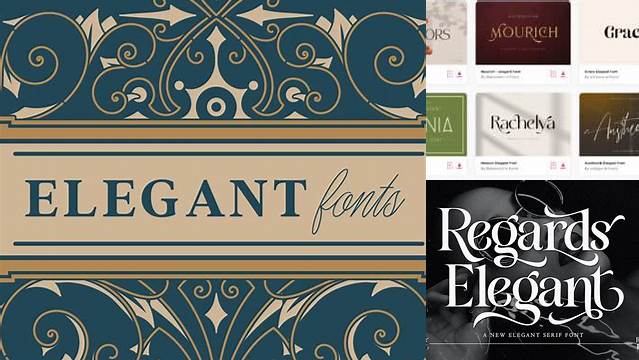
Free Elegant Fonts: Your Guide To Beautiful Typography
Are you searching for elegant fonts to elevate your design projects? Look no further! In this comprehensive guide, we'll dive into the world of elegant typography and explore a vast collection of free fonts that can add a touch of sophistication and class to your work. We know that finding the perfect font can be a game-changer, whether you're designing a website, crafting invitations, or creating marketing materials. The right font not only conveys your message effectively but also enhances the overall aesthetic appeal of your project. So, let's get started and discover the best elegant fonts available for free!
Why Elegant Fonts Matter
Elegant fonts are more than just pretty typefaces; they are powerful tools that can communicate the essence of your brand or message. These fonts often feature delicate strokes, graceful curves, and a timeless appeal, making them ideal for projects that require a touch of sophistication. Think about it, guys, an elegant font can instantly transform a simple design into something that exudes luxury and refinement. They can evoke feelings of elegance, grace, and professionalism, setting the tone for your entire design. For example, if you're designing a wedding invitation, an elegant script font can convey the romance and formality of the occasion. Similarly, for a high-end fashion brand, using a sleek and elegant sans-serif font can reinforce the brand's sophisticated image. Therefore, understanding the impact of elegant fonts and knowing how to use them effectively is crucial for any designer or creative professional. The right choice can make or break your design, so let’s explore the characteristics that define these exquisite typefaces.
Characteristics of Elegant Fonts
Elegant fonts typically share several key characteristics that contribute to their refined appearance. These characteristics include: Serifs, thin strokes, high contrast, graceful curves, and timeless design. Let's break down each of these elements to get a better understanding. Serifs are the small decorative strokes that extend from the ends of letters. Serif fonts, like Times New Roman or Garamond, are often perceived as more traditional and formal, making them a great choice for conveying elegance. Fonts with thin strokes, as opposed to bold or heavy strokes, tend to look more delicate and refined. The thinness of the lines adds to the overall elegance of the font. High contrast refers to the difference in thickness between the thickest and thinnest parts of a letter. Fonts with high contrast, such as Didot or Bodoni, are known for their striking appearance and are often used in fashion and luxury branding. The graceful curves in letters can add a touch of artistry and sophistication. Think of the flowing lines in script fonts or the gentle curves in some serif fonts. These curves create a visual rhythm that is pleasing to the eye. Finally, elegant fonts often have a timeless design, meaning they don't follow fleeting trends but rather have a classic appeal that lasts through the years. These fonts are versatile and can be used in a variety of contexts without looking dated. By understanding these characteristics, you can better identify and select the most suitable elegant fonts for your projects.
Types of Elegant Fonts
When it comes to elegant fonts, there's a wide variety to choose from, each with its unique style and application. We can generally categorize them into serif fonts, sans-serif fonts, script fonts, and display fonts. Let's take a closer look at each type. Serif fonts are the classic choice for elegance. These fonts have serifs, the small decorative strokes at the ends of the letterforms, which give them a traditional and refined look. Examples of elegant serif fonts include Garamond, Baskerville, and Times New Roman. These fonts are often used in books, magazines, and formal documents. Sans-serif fonts, on the other hand, lack serifs and have a cleaner, more modern appearance. While not as traditionally elegant as serif fonts, some sans-serif fonts can still convey sophistication. Fonts like Helvetica Neue, Futura, and Montserrat can be used in elegant designs, especially when paired with the right colors and layout. Script fonts are designed to mimic handwriting and can add a touch of romance and personalization to your designs. These fonts are often used for invitations, logos, and branding materials. Examples of elegant script fonts include Calligraphy, Brush Script, and Lobster. Finally, display fonts are designed to be used in headlines and other large-size applications. These fonts come in a wide variety of styles, and some can be quite elegant. Examples of elegant display fonts include Playfair Display and Oswald. By understanding the different types of elegant fonts, you can better select the perfect typeface for your project and create designs that truly shine.
Top Free Elegant Font Recommendations
Let's dive into some specific recommendations for free elegant fonts that you can use in your projects. These fonts have been selected for their beauty, versatility, and overall elegance. Garamond is a classic serif font that exudes timeless elegance. Its refined letterforms and delicate serifs make it perfect for print projects, such as books and magazines. Playfair Display is a stylish serif font with high contrast and a contemporary feel. It's great for headlines and titles, adding a touch of sophistication to any design. Raleway is a versatile sans-serif font that works well in both headlines and body text. Its clean lines and geometric forms give it a modern yet elegant appearance. Montserrat is another popular sans-serif font that's known for its readability and elegance. It's a great choice for websites and other digital designs. Great Vibes is a beautiful script font that's perfect for invitations, logos, and other projects that require a touch of handwriting. Its flowing lines and elegant flourishes add a personal touch to your designs. These are just a few of the many elegant fonts available for free. By experimenting with different typefaces and combinations, you can create designs that are both visually appealing and effective in communicating your message. So, guys, don’t be afraid to explore and find the perfect font for your next project!
How to Use Elegant Fonts Effectively
Choosing an elegant font is just the first step; using it effectively is what truly matters. Proper font usage can elevate your design, while misuse can detract from it. Let's discuss some best practices for using elegant fonts in your projects. Pairing fonts effectively is crucial. An elegant font often works best when paired with a simpler, more neutral font. For example, you might pair a serif font like Garamond with a sans-serif font like Helvetica. This creates a visual contrast that's pleasing to the eye. When using elegant fonts, less is often more. Avoid using too many different fonts in a single design, as this can make your design look cluttered and chaotic. Stick to two or three fonts at most. Legibility is key, especially when it comes to body text. While elegant fonts can be beautiful, they're not always the most readable. Make sure your font is easy to read at the size you're using it, and consider using a simpler font for body text. The size and spacing of your font can also impact its effectiveness. Make sure your font is large enough to be easily read, and adjust the letter spacing and line height to improve readability. Finally, consider the context of your design. An elegant font might be perfect for a wedding invitation but less appropriate for a technical manual. Choose a font that fits the overall tone and message of your project. By following these tips for using elegant fonts, you can create designs that are both beautiful and effective.
While elegant fonts can enhance your designs, there are some common mistakes you should avoid to ensure your typography looks polished and professional. These errors can undermine the elegance you're aiming for, so let's explore them. Overusing elegant fonts is a common pitfall. While these fonts are beautiful, using them for every element of your design can make it look overwhelming and cluttered. Use them sparingly, for headings or accent text, and pair them with simpler fonts for body text. Another mistake is choosing an elegant font that's difficult to read. Some fonts, especially script fonts, can be hard to decipher at smaller sizes. Always prioritize readability, especially for body text. Poor font pairing can also detract from the elegance of your design. Avoid pairing fonts that are too similar or that clash with each other. A good rule of thumb is to pair a serif font with a sans-serif font. Ignoring the context of your design is another mistake. An elegant font might be perfect for a luxury brand but inappropriate for a children's product. Choose fonts that align with your brand's personality and target audience. Finally, neglecting kerning and leading can make your typography look unprofessional. Kerning refers to the spacing between individual letters, while leading refers to the spacing between lines of text. Adjust these settings to improve readability and visual appeal. By avoiding these common mistakes when using elegant fonts, you can ensure your designs look their best and effectively convey your message.
In conclusion, elegant fonts are a powerful tool for designers looking to add a touch of sophistication and class to their projects. By understanding the characteristics of elegant fonts, exploring the different types available, and knowing where to find free options, you can elevate your designs and create visually stunning pieces. Remember to use these fonts effectively, avoid common mistakes, and always prioritize readability. With the right elegant font, you can transform your designs and make a lasting impression. So, go ahead, explore the world of elegant typography, and let your creativity shine!